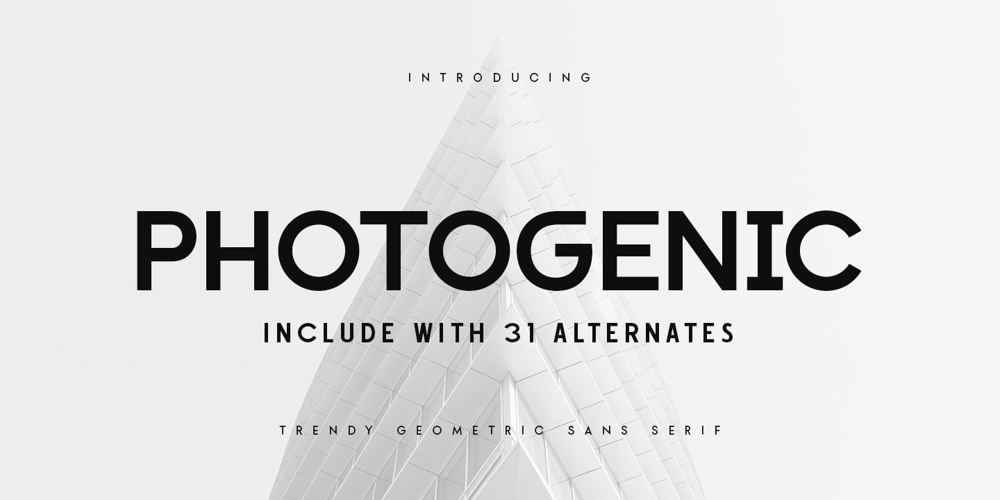
Photogenic Style Font Family was designed by Zamroni Hamzah and published by Sensatype Studio. Photogenic Style contains 1 styles and family package options. Photogenic is a Modern Geometric font that created special for Branding, Title and more stand out typography needs, with extra alternative styles that make your design more memorable. It’s so perfect to add your style and headline overview for business, technology, actions, and minimalist theme. And specially for this font, we crafted for minimalist style and modern feels so enjoy to create any project that will show your main idea out.Photogenic Modern Geometric font ready with: Preview as a inspirations that you can do with Photogenic font Ready with Uppercase & Lowercase characters Wish you enjoy our font. 🙂